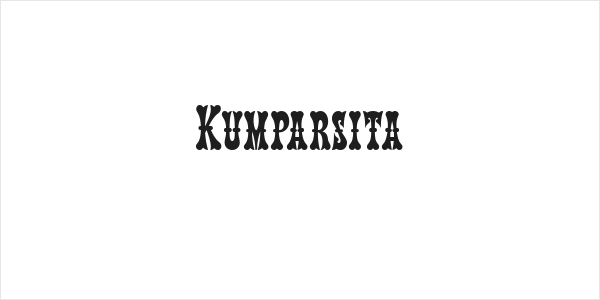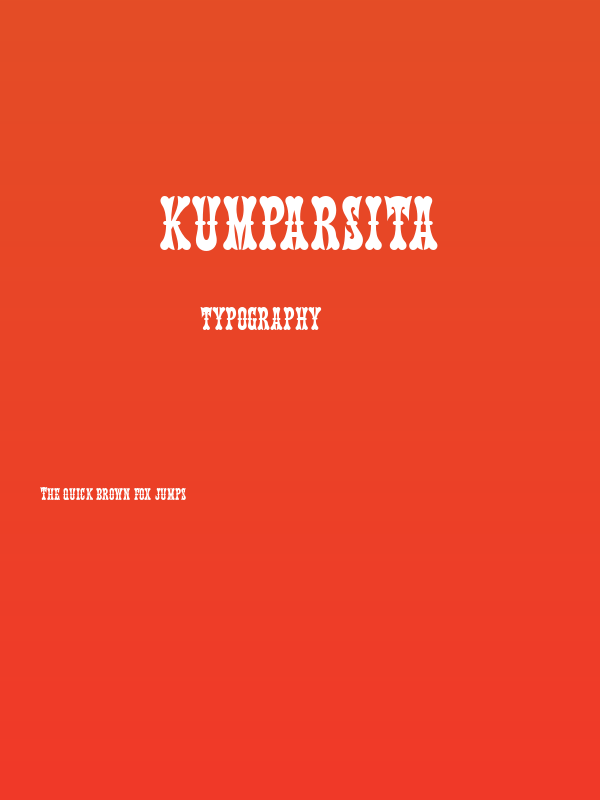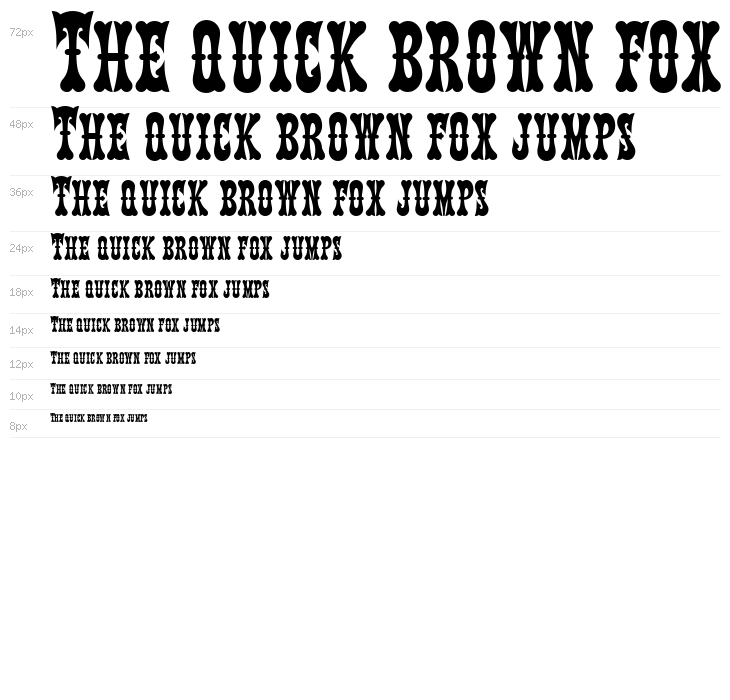
Kumparsita Font
Kumparsita Description
This font features a bold and dramatic style with exaggerated serifs and high contrast between thick and thin strokes. The characters are uniquely shaped, with an ornamental and decorative flair that gives them a vintage and theatrical appearance. The uppercase letters are particularly striking, with wide, sweeping curves and intricate details that make each letter stand out. The numbers and special characters maintain this elaborate design, ensuring consistency across the font. This font is ideal for projects that require a strong visual impact and a touch of elegance.
| Proposed Projects | Ideal for posters, theatrical event flyers, vintage-themed branding, and decorative headlines. |